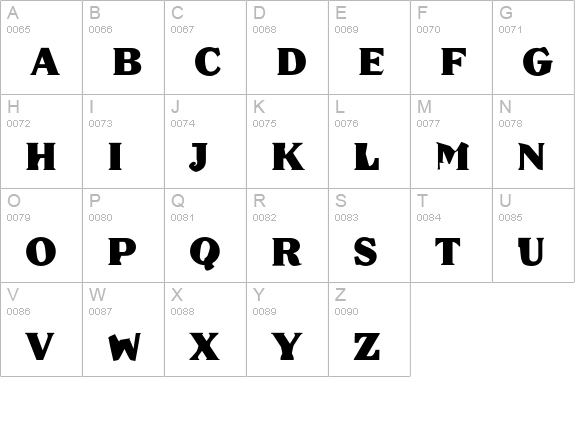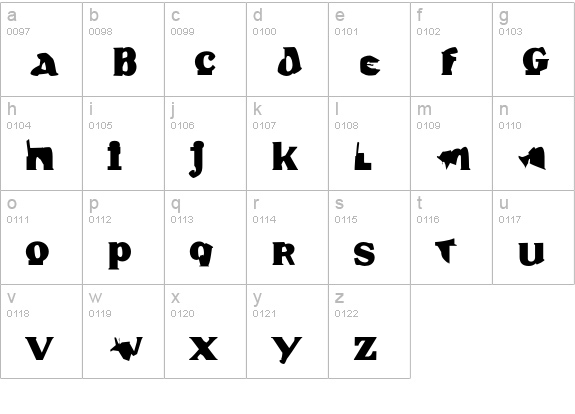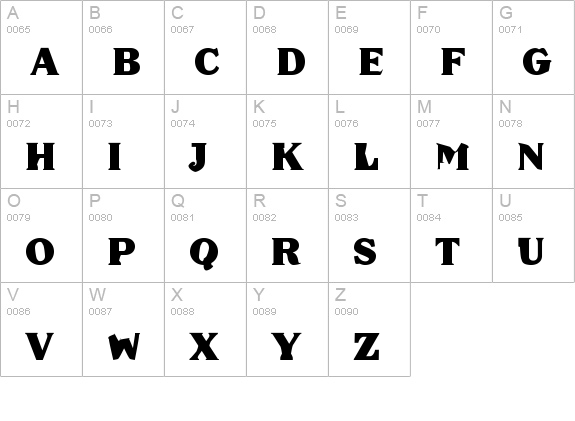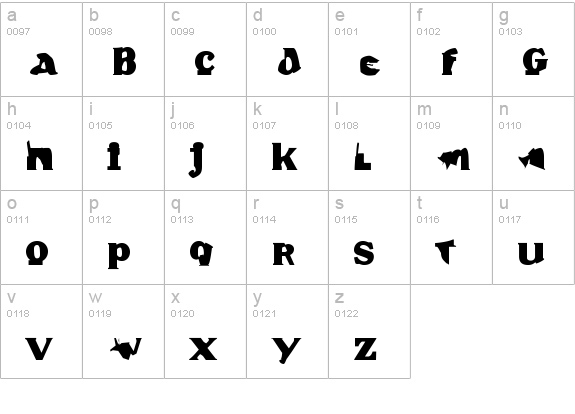
Dirty-SixOne Font Details
Dirty-SixOne font is a rugged and edgy typeface that exudes a sense of boldness and rebellion. Its distressed and grungy appearance adds a unique character to any design project, making it perfect for posters, album covers, and urban-themed branding. This font is freely available to download at FontsMarket.com, allowing designers and creatives to easily access and incorporate this eye-catching typeface into their projects. With its stylishly distressed letterforms and rough texture, Dirty-SixOne font adds a touch of urban grit and attitude to any design, making it a versatile choice for those looking to make a statement. Whether you're working on a streetwear brand, a music festival poster, or a gritty urban photography project, Dirty-SixOne font is sure to make a bold impact. Download it for free today and unleash its raw and rebellious energy in your next creative endeavor.